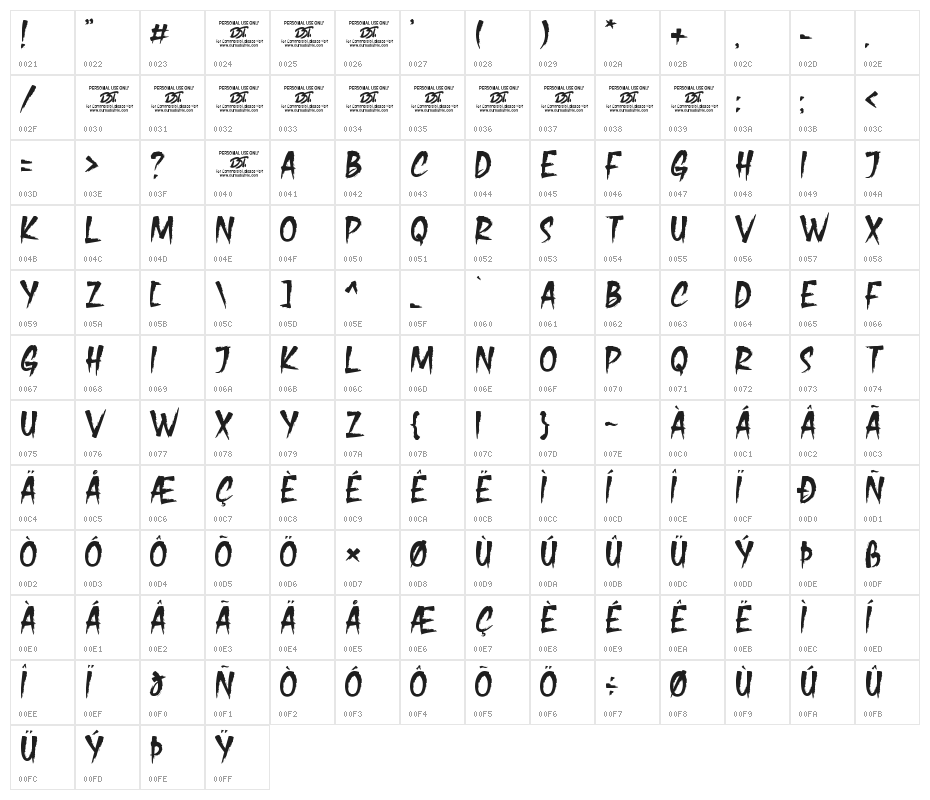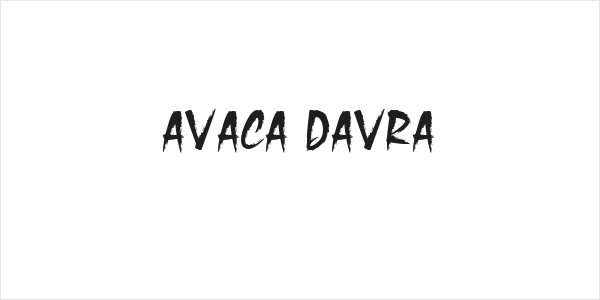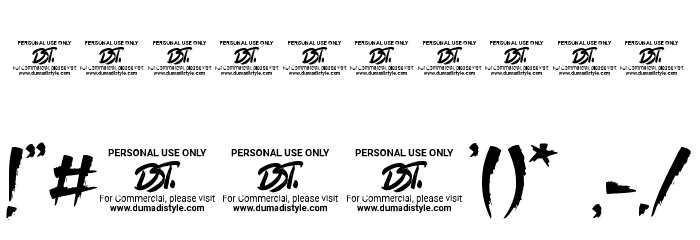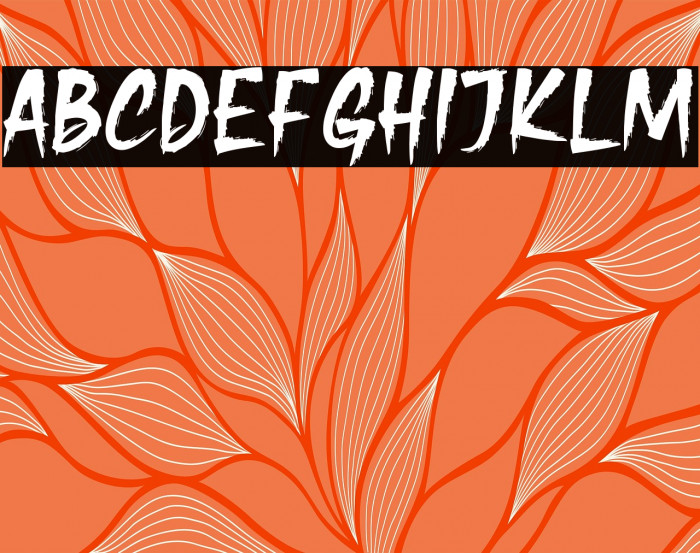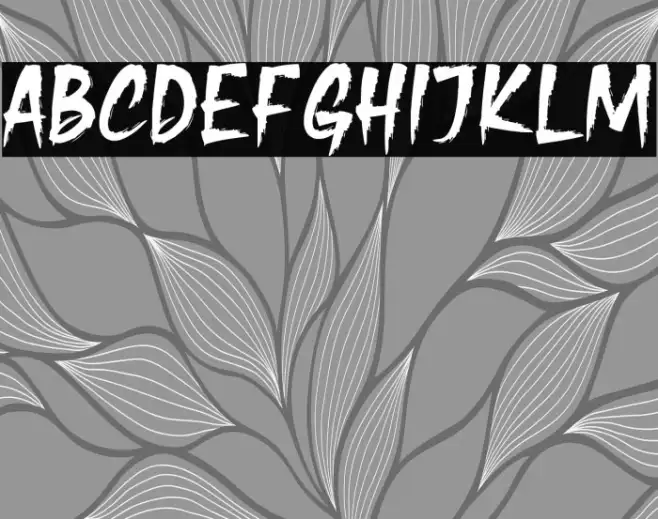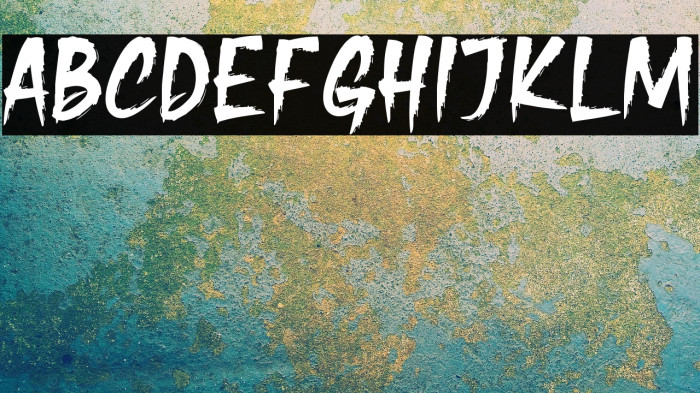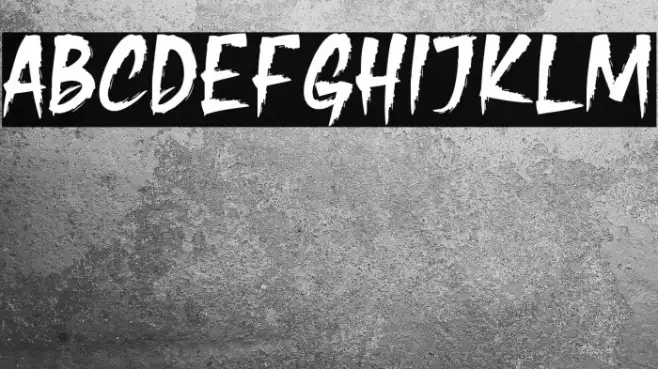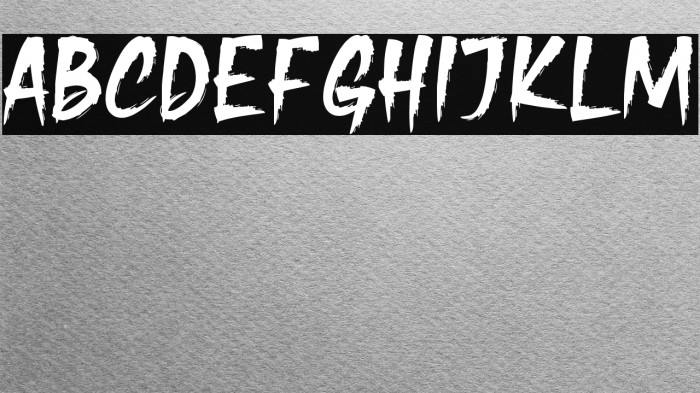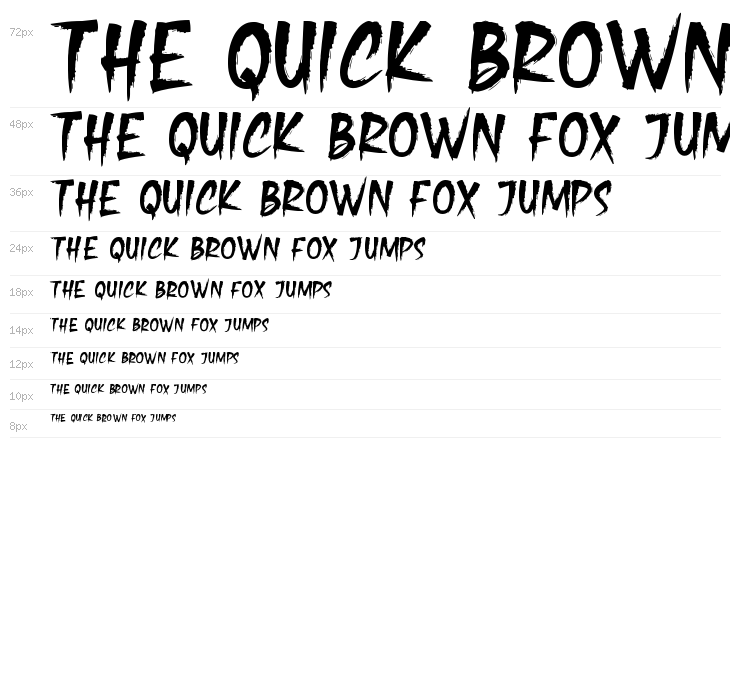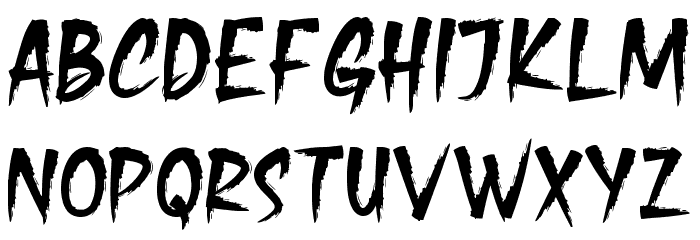
Avaca Davra Font
Avaca Davra Description
This font features a bold and dynamic brush style, characterized by sharp, jagged edges and an energetic flow. The strokes are uneven, giving it a hand-painted appearance, which adds a sense of movement and intensity. The uppercase and lowercase letters maintain a consistent style, with exaggerated angles and a slightly aggressive look. The numerals and special characters follow the same aesthetic, ensuring a cohesive design throughout. This font is ideal for projects that require a bold statement or an edgy, artistic touch.
| Overall Style | Modern, Artistic |
| Proposed Projects | Ideal for music album covers, event posters, graffiti art, and edgy branding projects. |